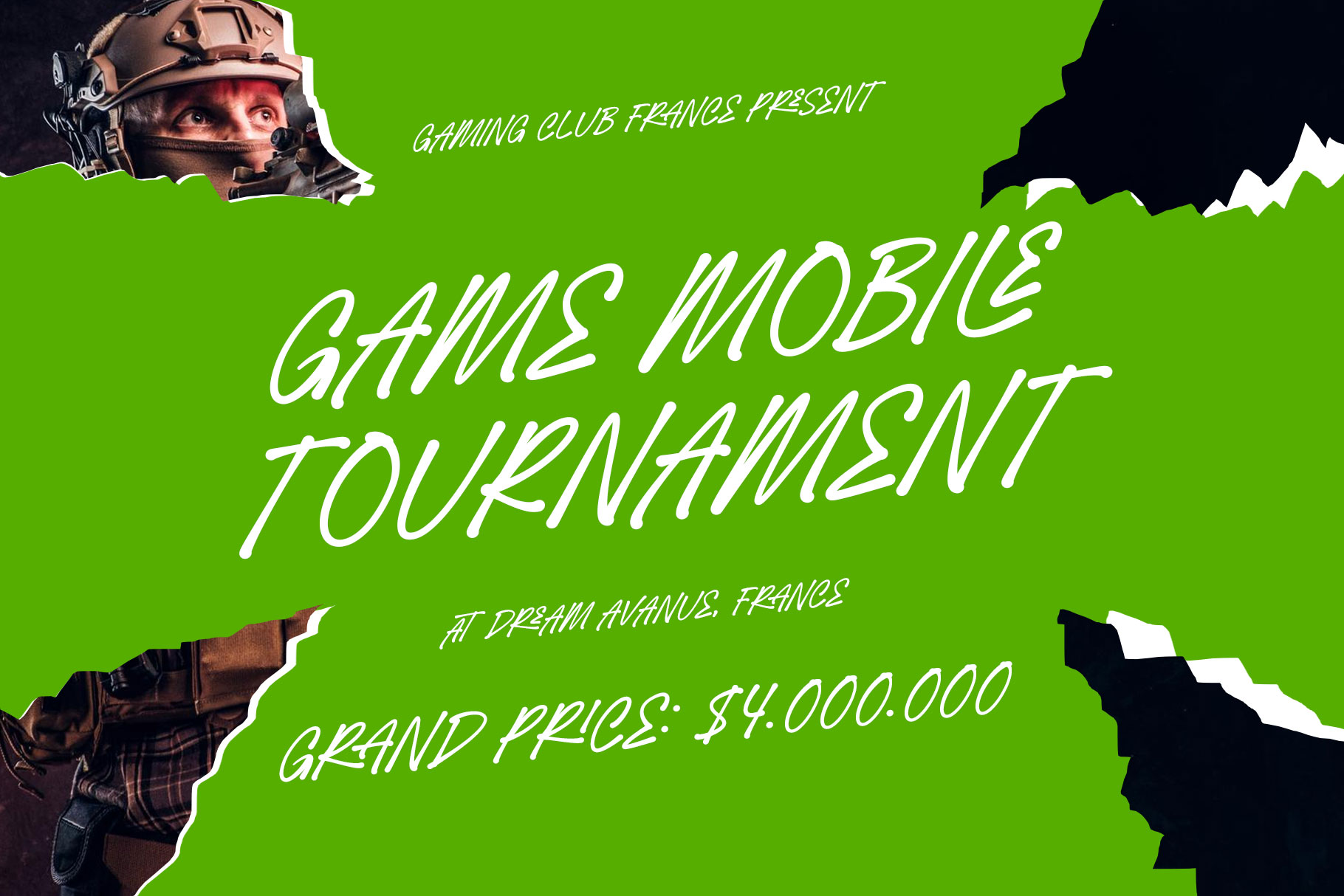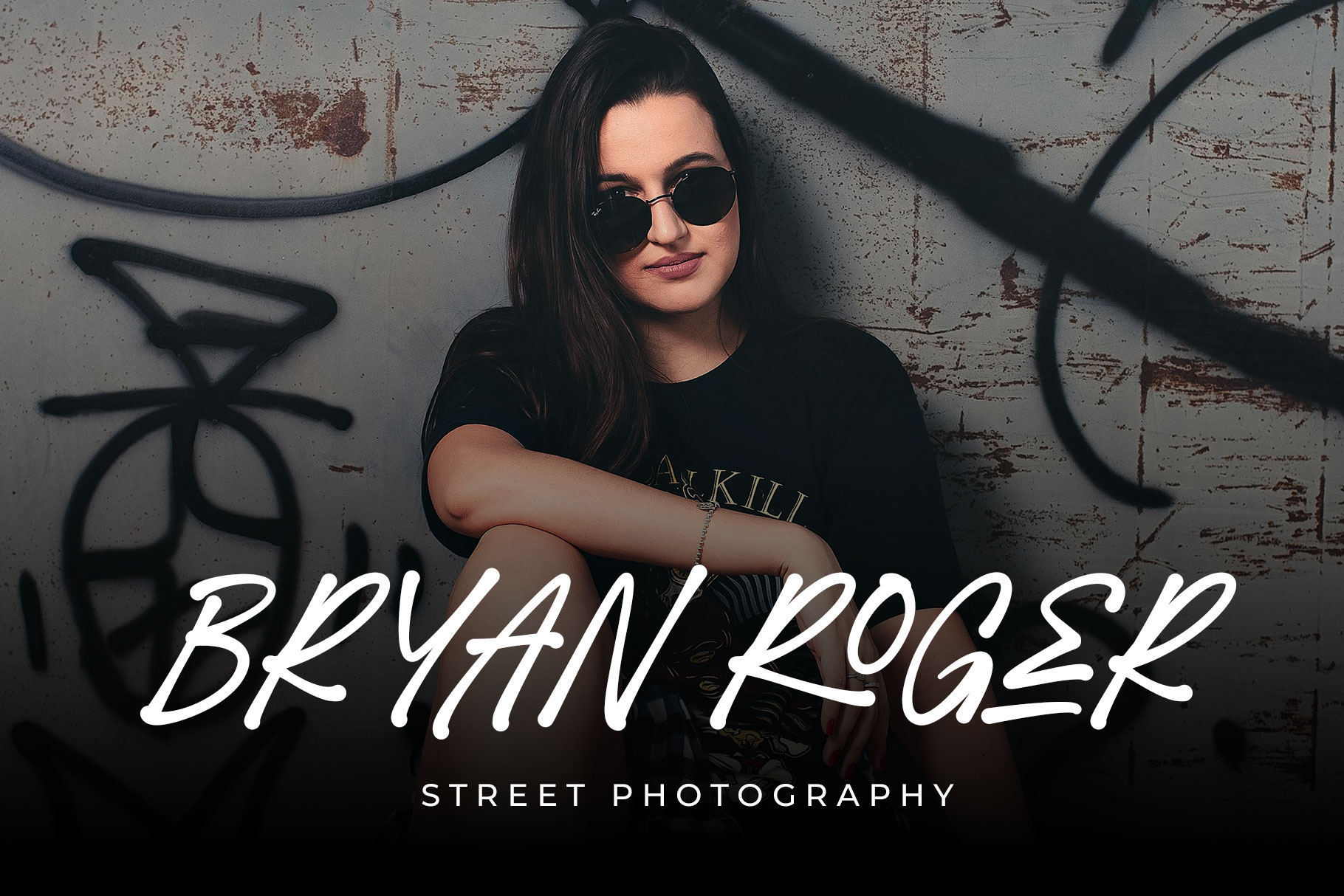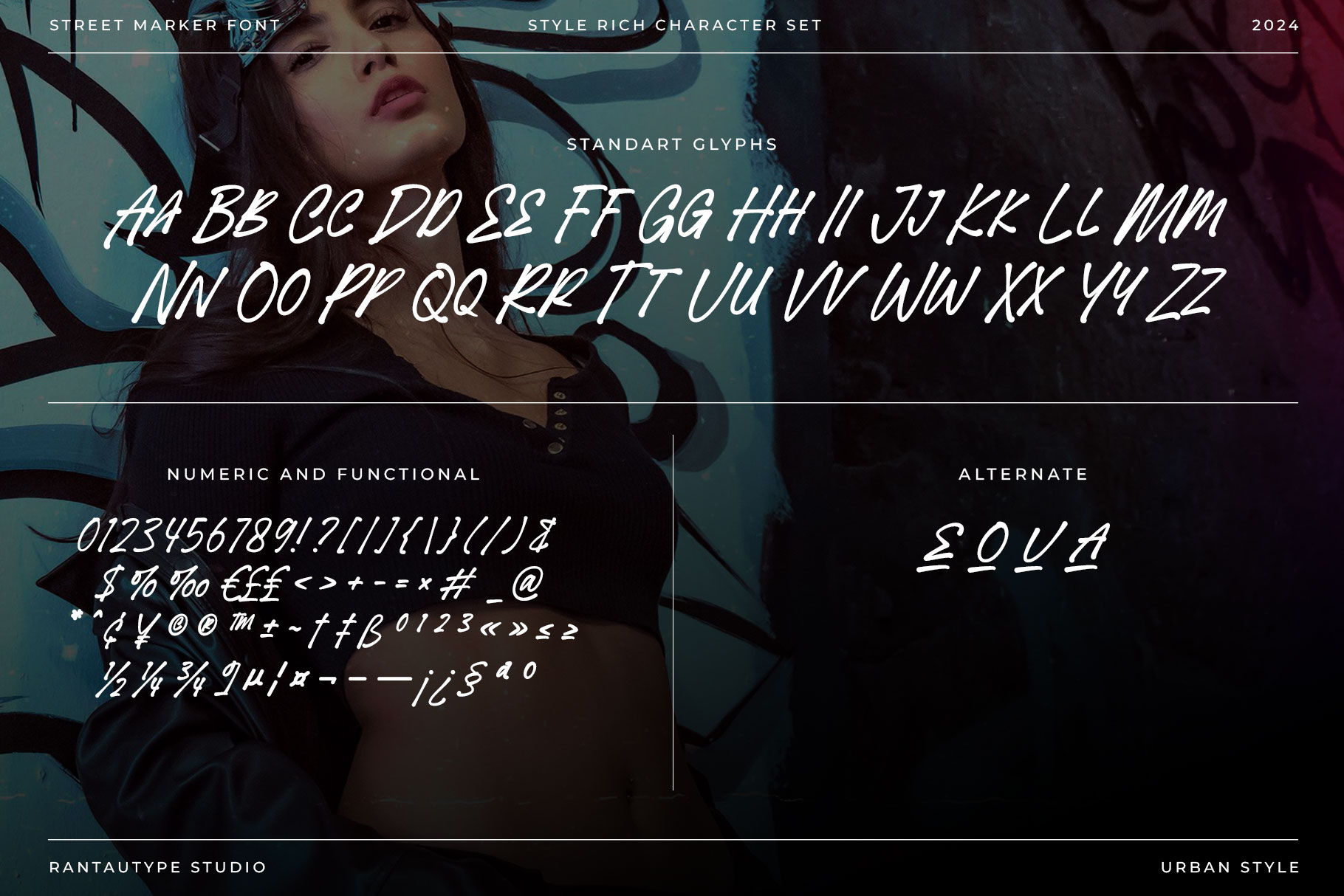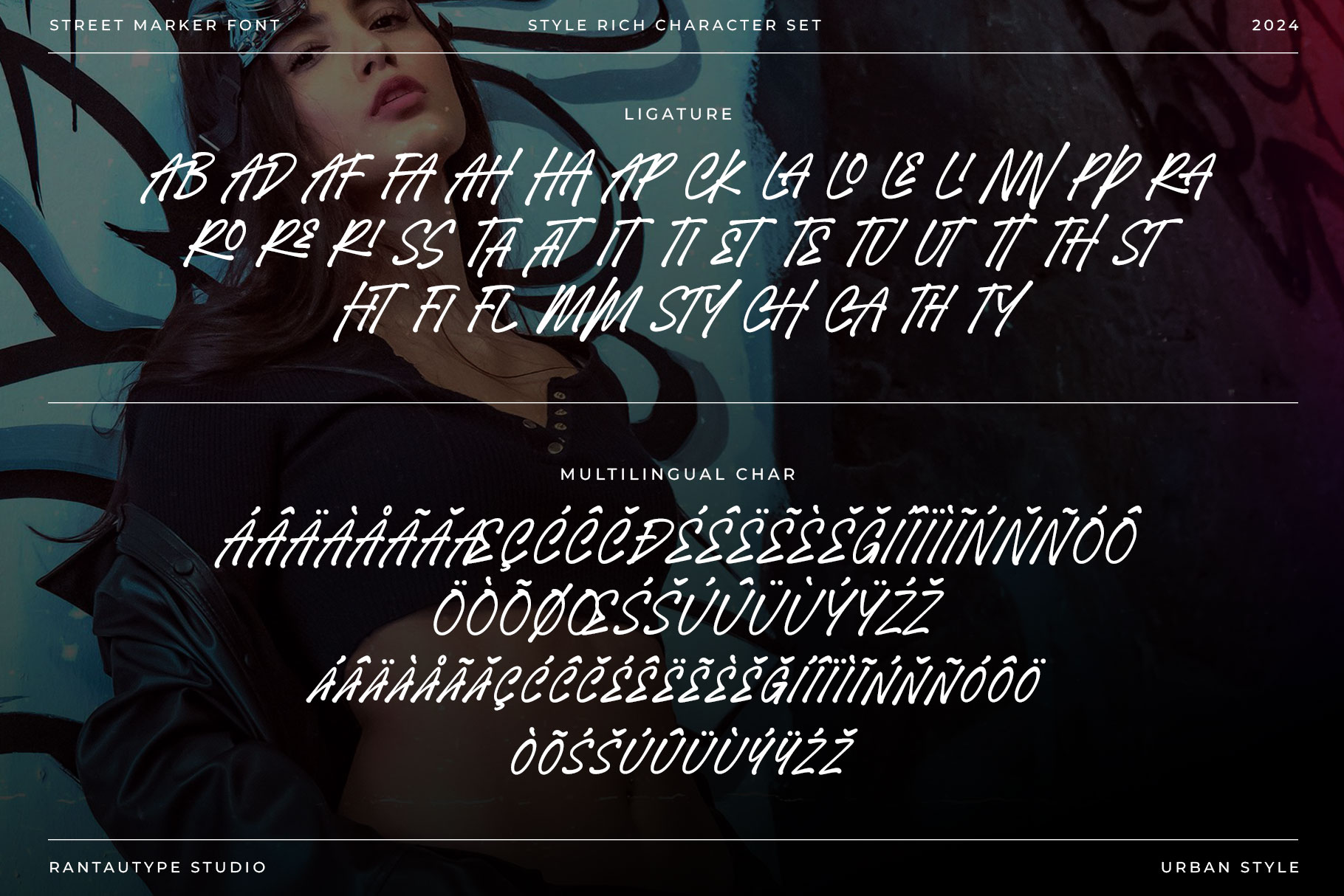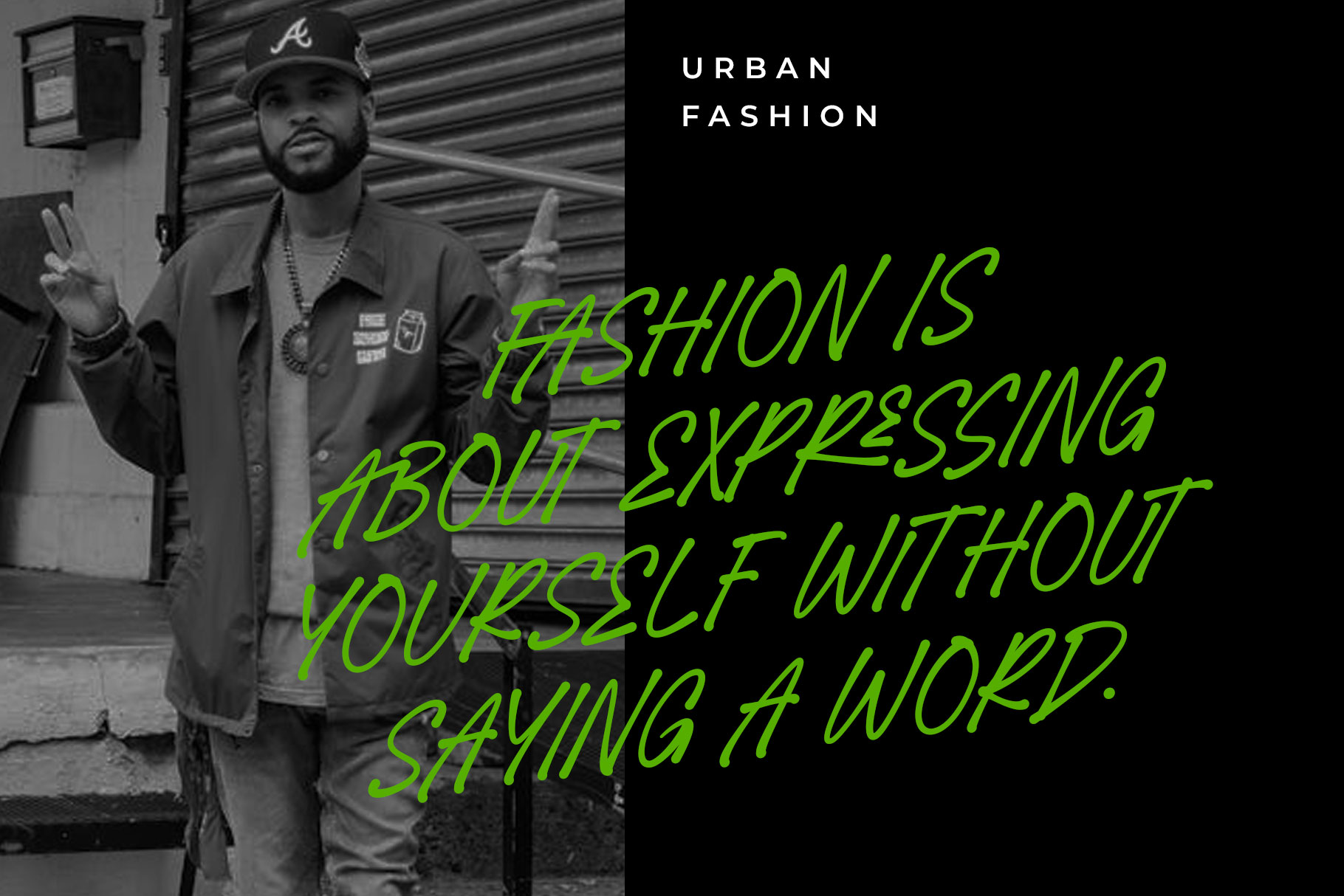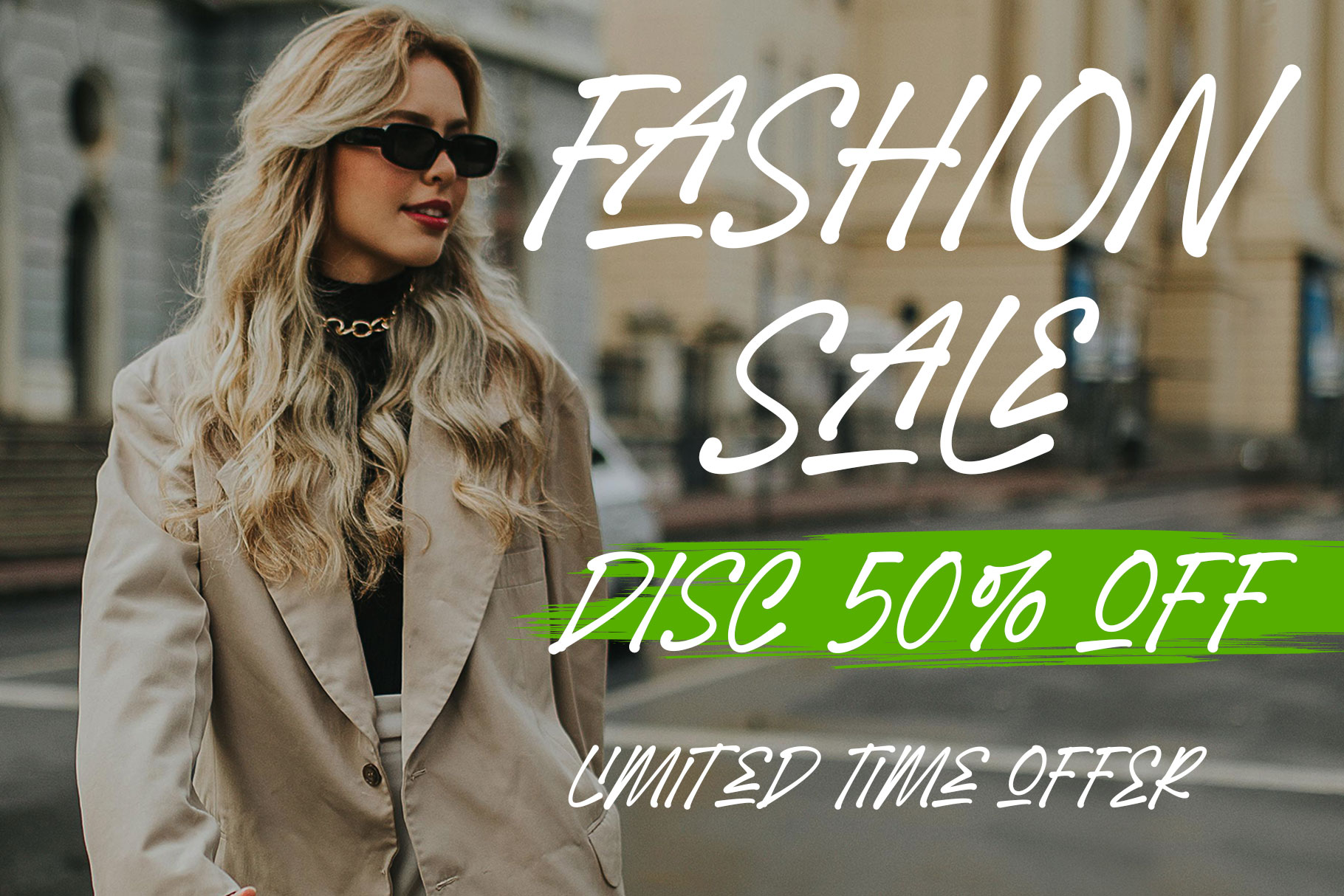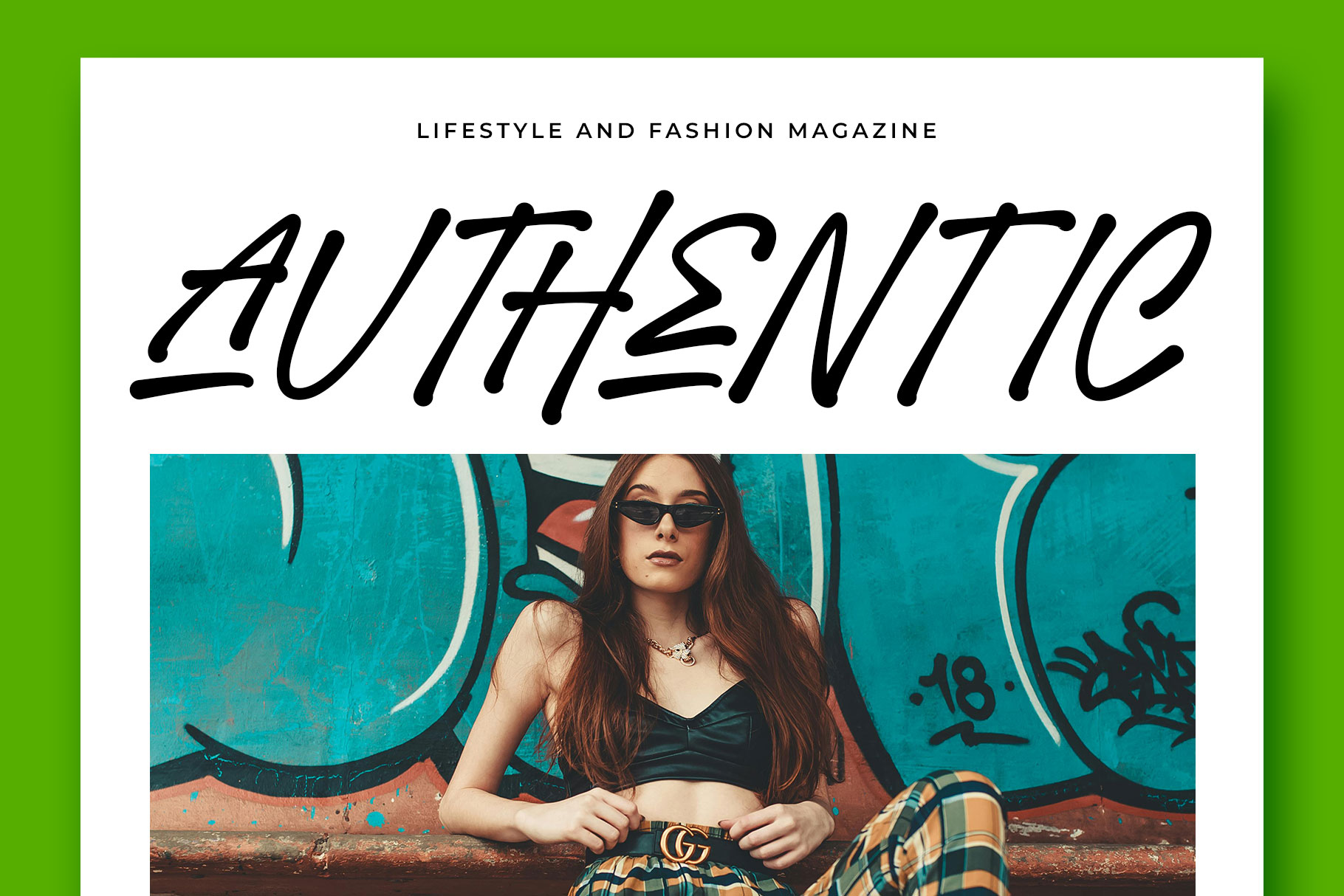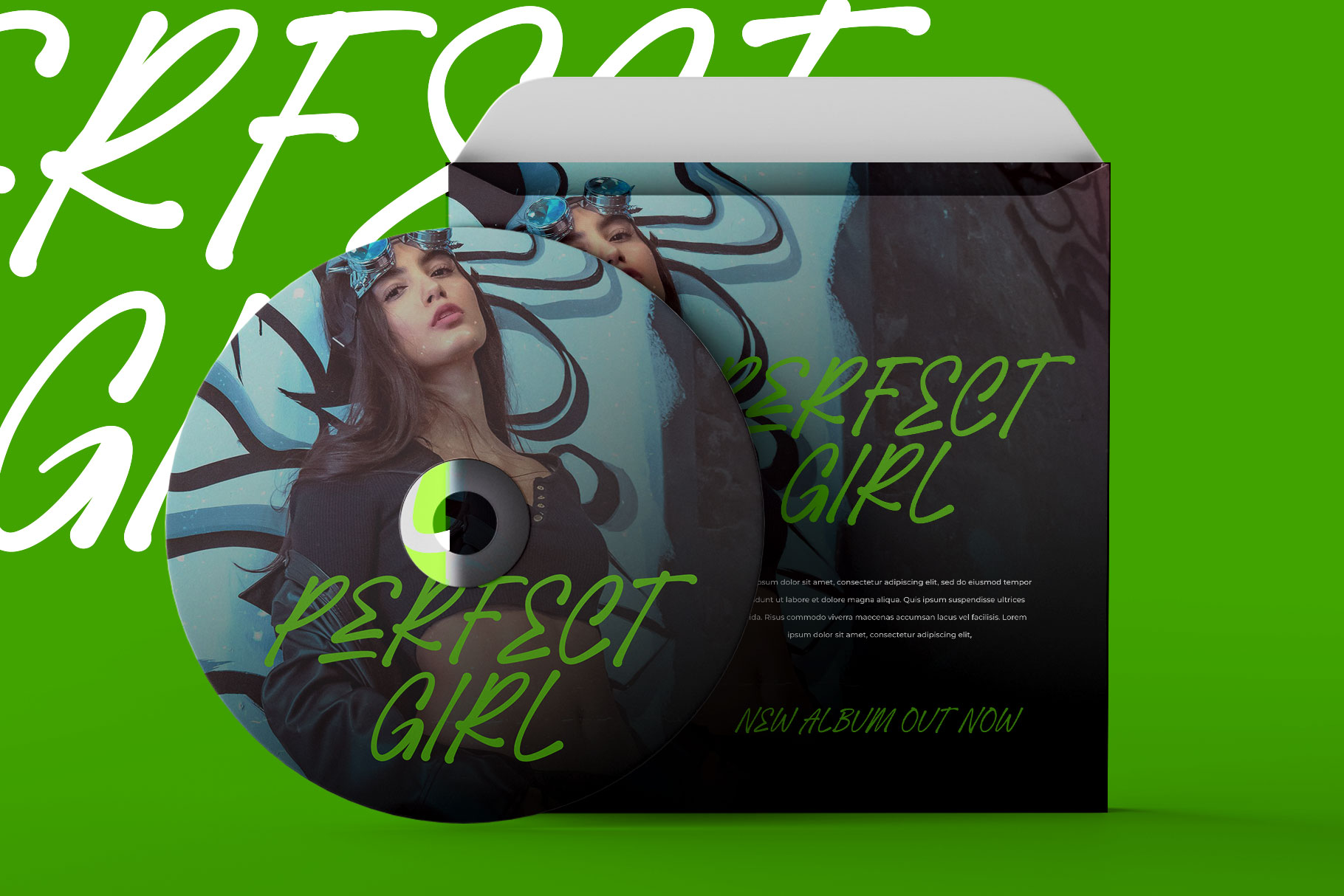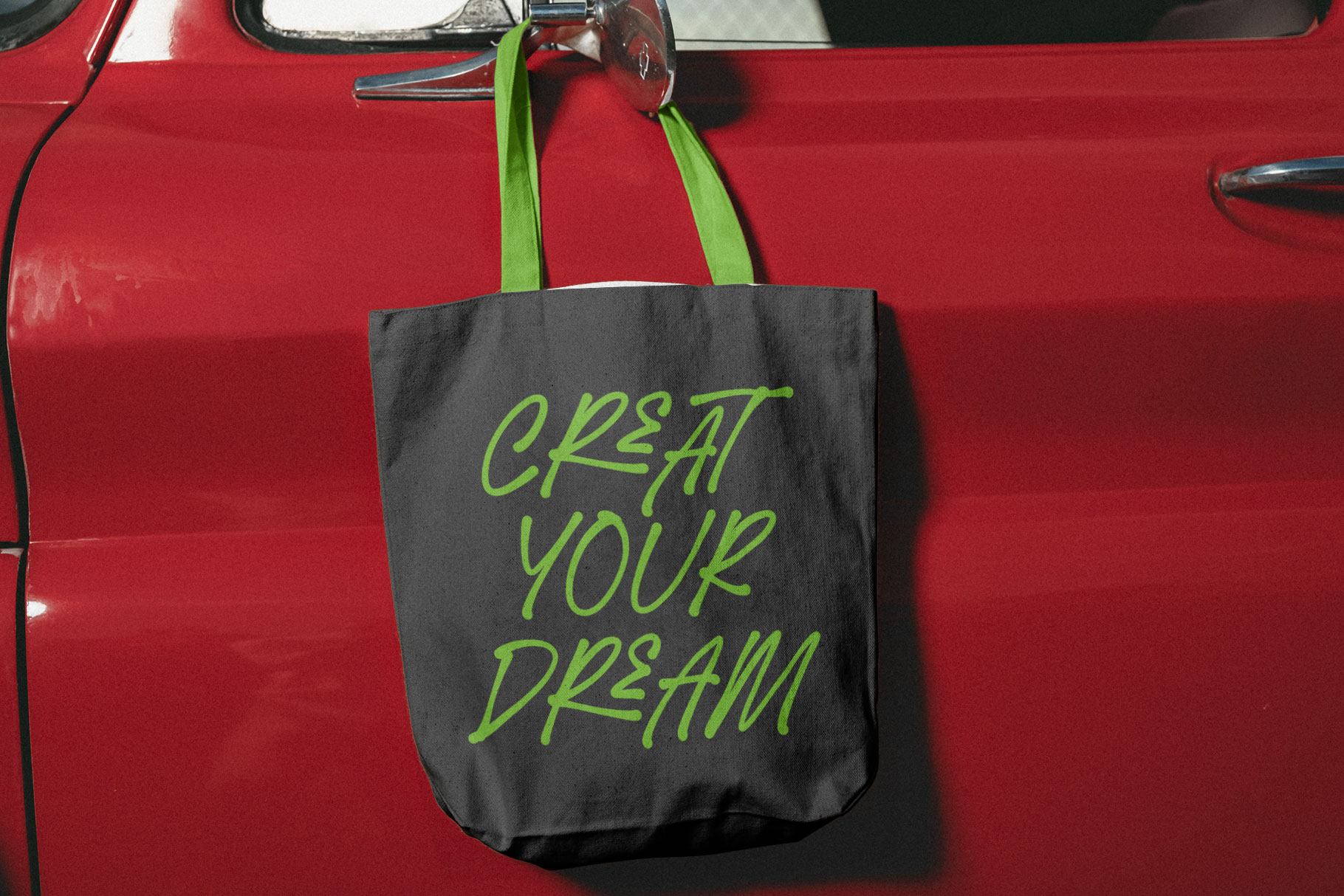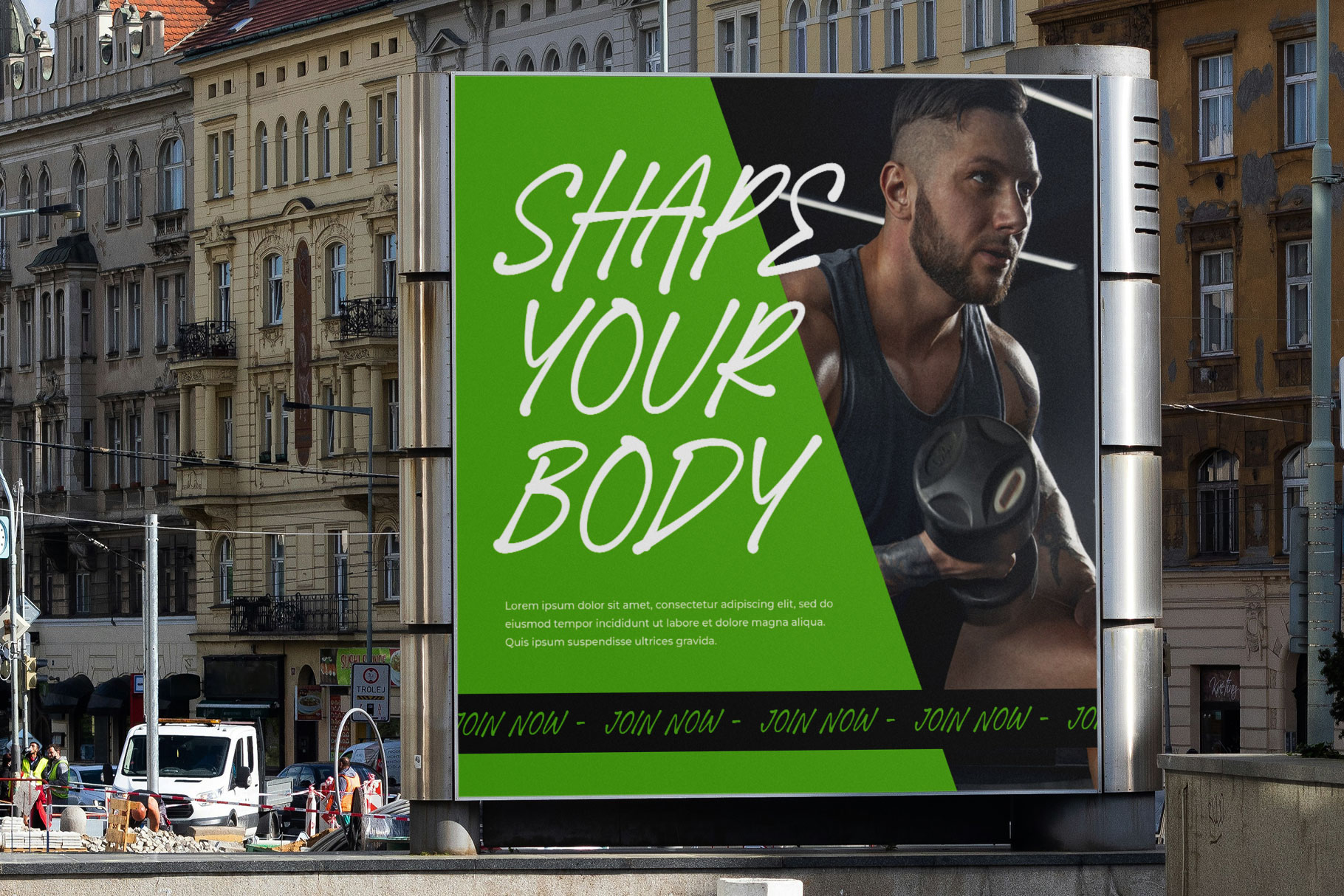
Style Rich Street Marker Font
Style Rich is marker street font inspire by aesthetic of graffity. Style Rich bring hand-brush and strong style to create a true street soul. Style Rich come with flow and dinamic shape give a unique touch and keep the spirit of street style.
Style Rich is a perfectly choice for any creative endeavor, lifestyle design such as logotype, advertisements, watermark on photography, branding project, display and magazine, invitation, corporate brand, product design, label, business project and other project with street taste.